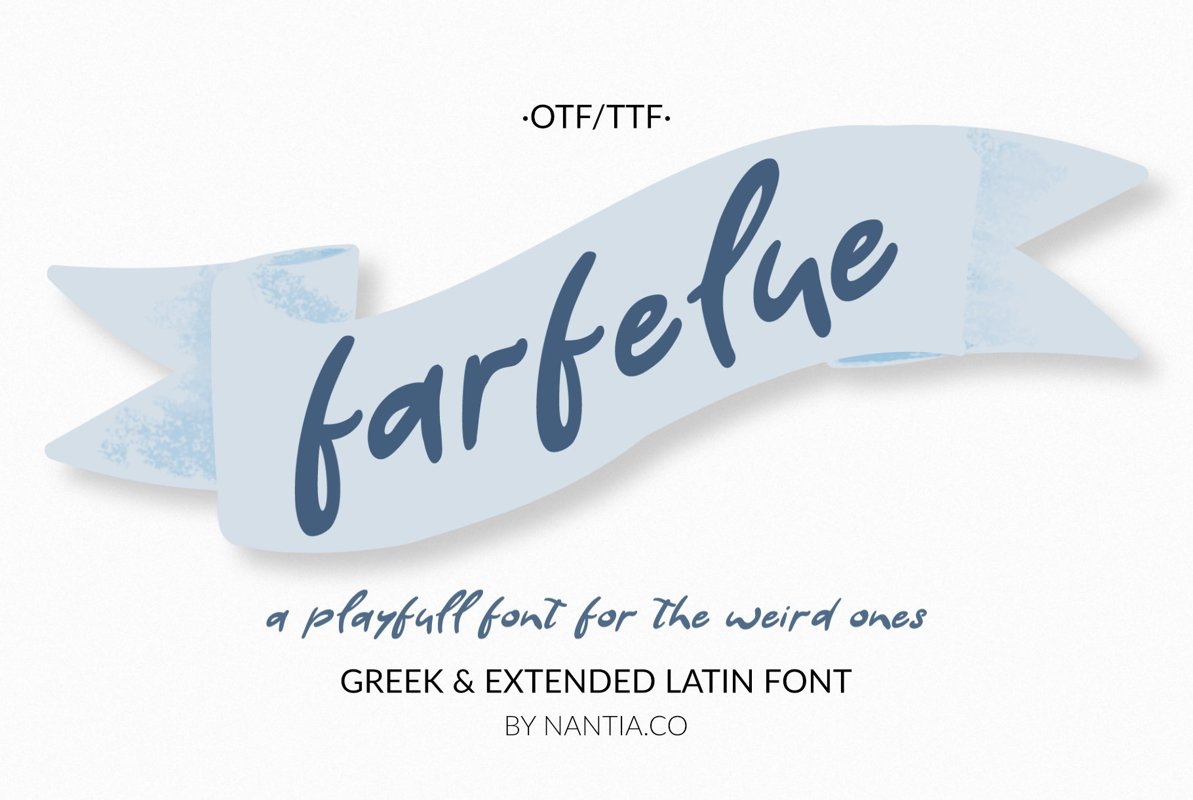
Farfelue, playful font for the weird ones!
Farfelue, a playful font for the weird ones!
Farfelue is a brush typeface with Greek character support. Farfelue
is a lettering font with Greek (of course) and Extended Latin characters.
The font is handcrafted, but still is maintaining its legibility and
balance so it can be used in packaging or logotypes and branding.
Especially if you are looking for a font for Instagram cute quote posts
or any other social media content, this typeface is the perfect match
for you!
• Extended Latin character set
• Greek character set
• punctuation marks
• numbers